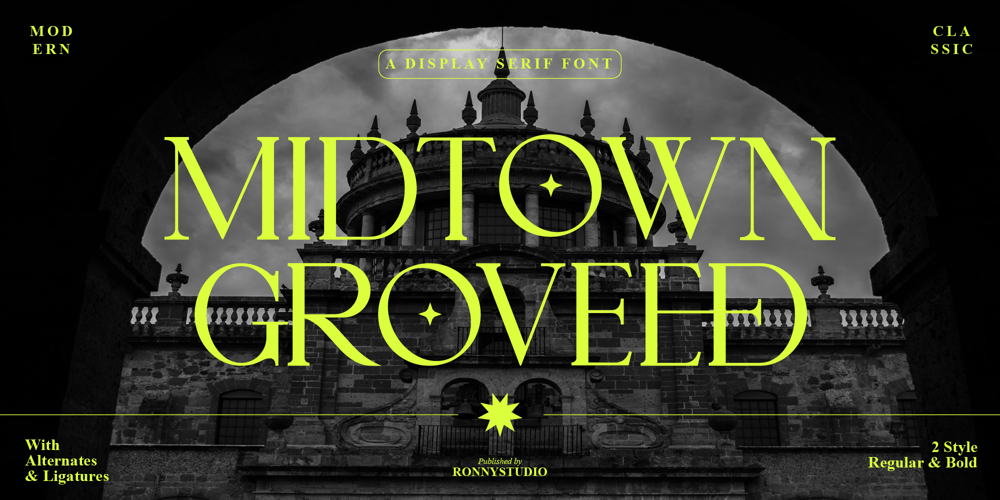
Midtown Groveed Font Family was designed by Rony Rizki Jaya and published by Ronny Studio. Midtown Groveed contains 2 styles and family package options. Midtown Groveed is an elegant classic serif typeface. A simple font, with a thin size, adds an elegant and classy impression. This typeface is perfect for elegant logos, branding, travel promotions, layout magazines, beauty products, product packaging, quotes, or simply as a stylish text overlay onto any background image.2 Style Font : Regular Bold Midtown Groveed Features : All Caps Numbers & Punctuation Ligature Alternate Multilingual Support Simple installation All of features and special characters of this font are included in one file. So it is easy to accessed by using program or software that support the opentype like Adobe Illustrator, Adobe Photosop, and Adobe Indesign). This font also very easy to use because compatible for all software even for non-opentype supported. Please comment us if you have any questions Thank you and have a nice day.thank you